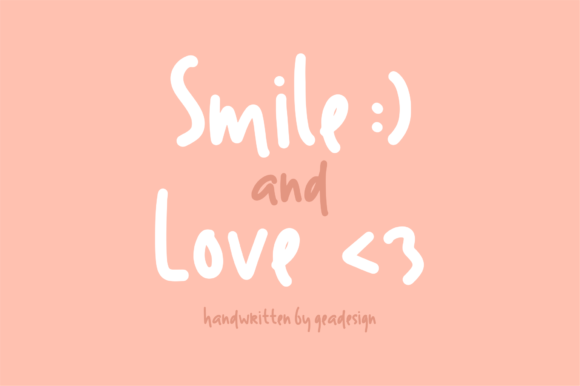
Prepare for an explosion of joy and love! Smile and Love Font is here to dance across your designs, carrying the spirit of happiness and cheerfulness. Each letter is a playful leap, a joyful swirl, bringing life to your creative expressions.
Picture this: your website, brochures, and social media posts beaming with the warmth and radiance of Smile and Love Font. Its captivating script, with a touch of casual charm, will make your words shine brighter than ever before.
With Smile and Love Font, you're not just typing words; you're painting smiles and spreading love. Whether you're crafting invitations for a joyful celebration or designing a logo that radiates positivity, this font will infuse your creations with an infectious happiness.
So, go ahead, embrace the joy and let Smile and Love Font ignite your creativity. Paint the digital world with laughter and love, one character at a time!